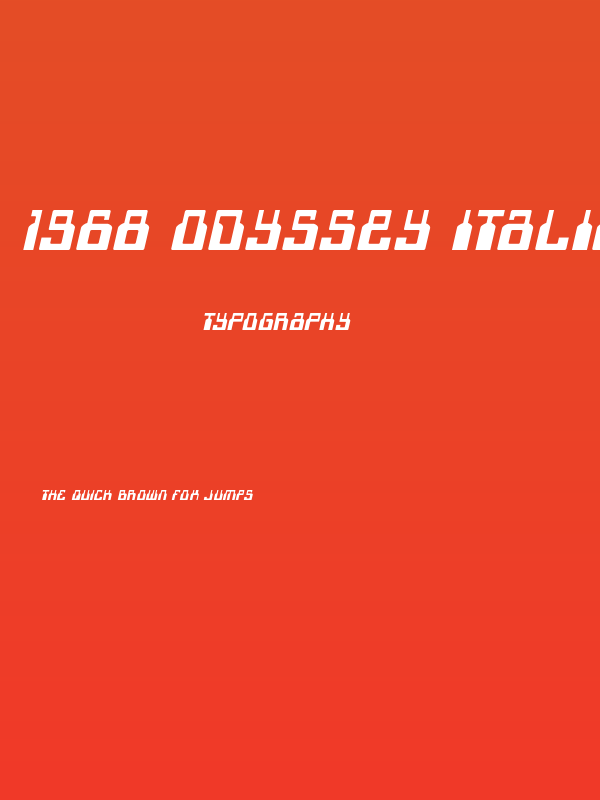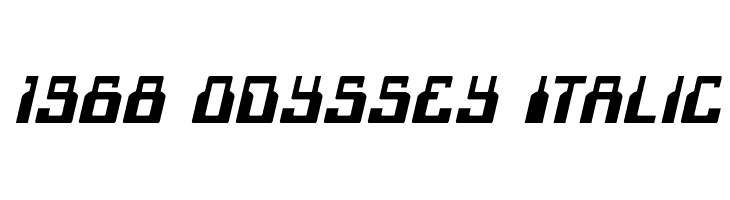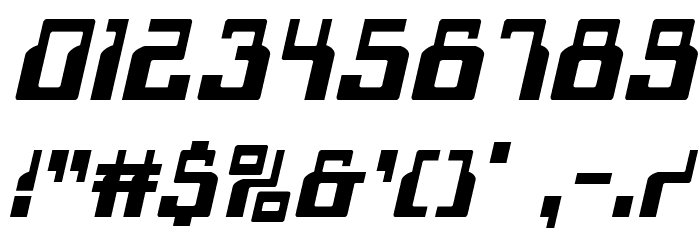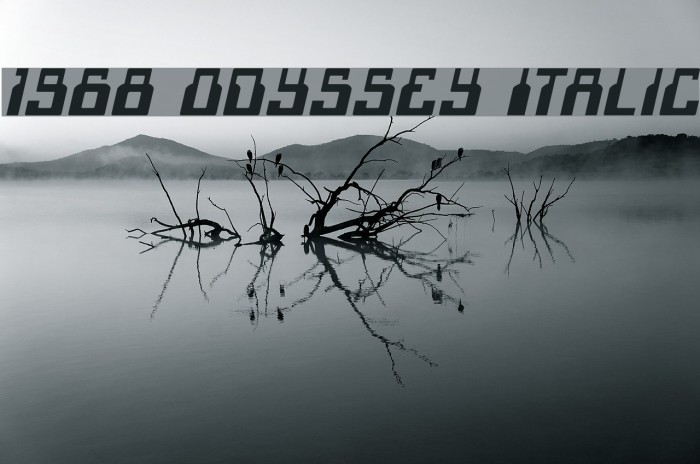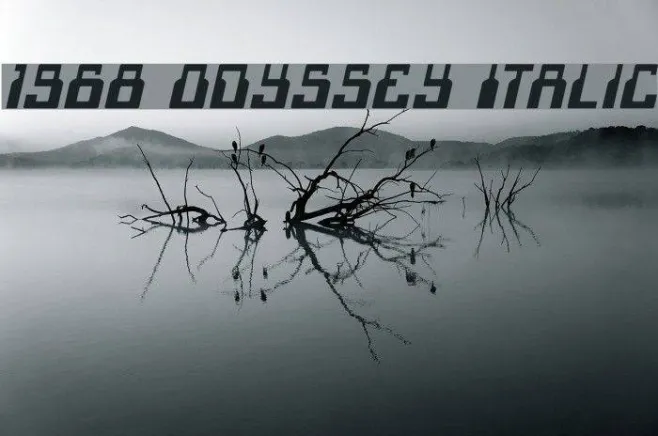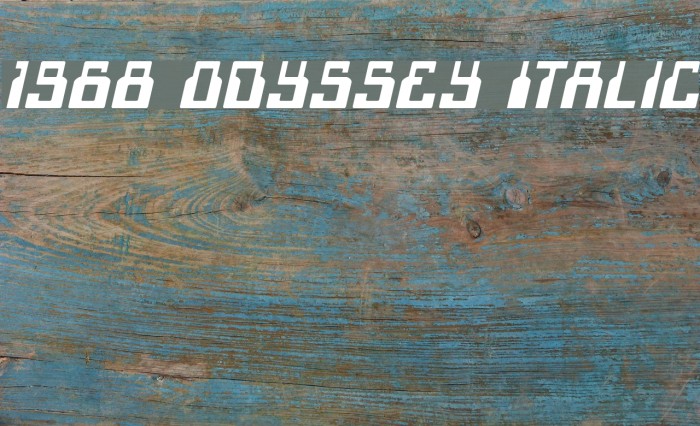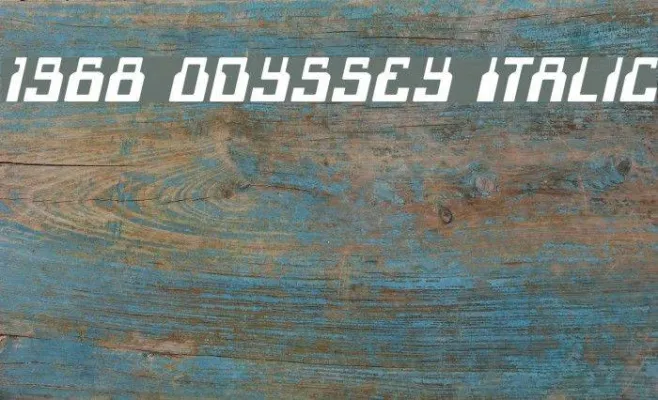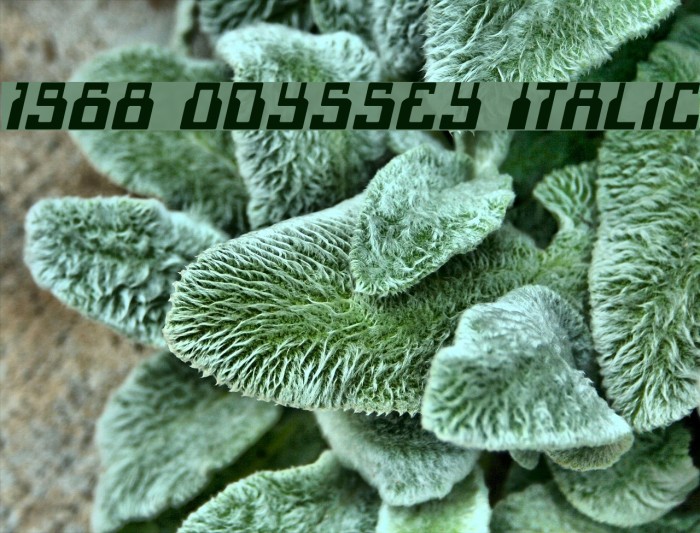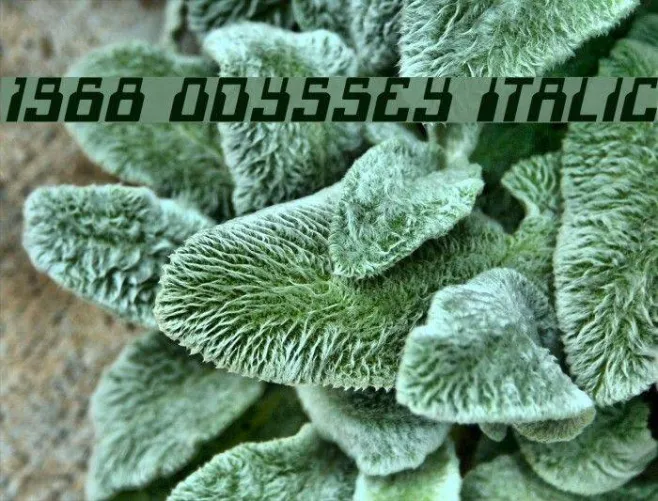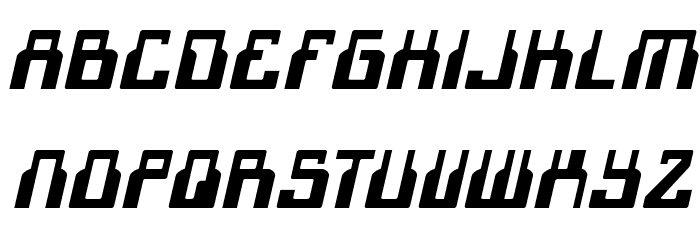
1968 Odyssey Italic Font
✎ Futuristic
1968 Odyssey Italic Description
This font features a futuristic and angular design, characterized by its bold and italicized letterforms. The geometric shapes and sharp edges give it a dynamic and modern appearance, reminiscent of retro-futuristic aesthetics. The uppercase and lowercase letters maintain a consistent style, with a slight slant that enhances its italic nature. Numbers and special characters are designed to match the overall theme, providing a cohesive look across all glyphs. The font's unique style makes it suitable for projects that require a bold statement or a sci-fi theme.
| Overall Style | Futuristic, Retro |
| Proposed Projects | Ideal for sci-fi themed posters, video game titles, futuristic branding, and technology-related projects. |